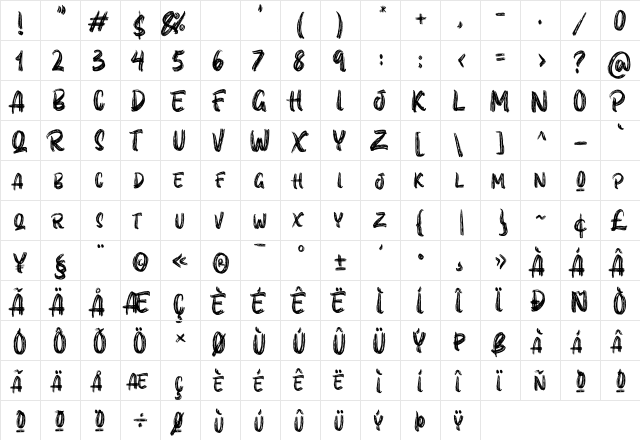
ROLLBLAST Personal Use Regular
| Designer | Muhammad Naufal Anis |
Design Context for ROLLBLAST Personal Use Typeface
ROLLBLAST Personal Use is a composed and adaptable typeface that performs quietly and consistently across a wide range of design contexts.
Pro Tip: Use ROLLBLAST Personal Use in both headline and body roles to test its range before committing to a single application.